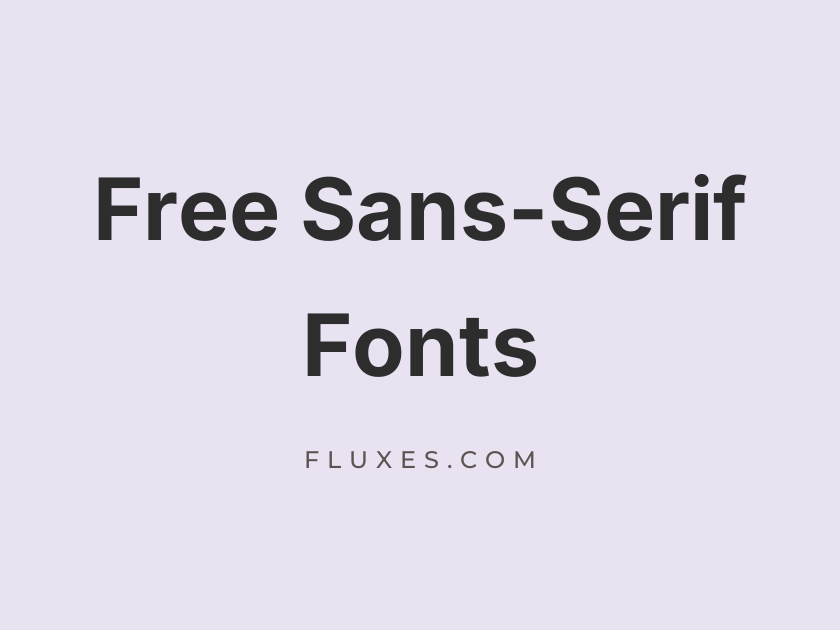
66 Best Free Sans-Serif Fonts
Sans-serif fonts are the workhorses of modern design: they carry paragraphs on screen, hold up in tiny UI labels, and still look sharp blown up on a poster. Anyone hunting for free sans-serif fonts for a website, app, or brand identity eventually lands on Google Fonts, where the sheer volume of options can be overwhelming. Some of these families are close cousins of paid classics like Helvetica, Futura, or Proxima Nova; others carve out their own personality entirely, from tight geometric grotesques to warm, rounded humanist faces.
1. Inter
Designed for screens, legible at every size
Built specifically for user interfaces, Inter has become the default choice for countless product teams because it simply behaves itself: tall x-height, open counters, and near-invisible personality that lets content do the talking. It is an obvious substitute for paid grotesques like Neue Haas or Helvetica Now on the web.
2. Roboto
Clean geometry meets friendly, humanist curves
Google’s own workhorse blends geometric bones with slightly humanist curves, which is why it reads as neutral on a spreadsheet and just as comfortable on a mobile app icon. Its ubiquity is a fair criticism, but the craftsmanship underneath still holds up.
3. Open Sans
Friendly, open letterforms for everyday reading
Open Sans earns its name honestly, with wide apertures and generous spacing that keep paragraphs breathable even in small print. It is a safe, dependable pick when a client asks for something that “just looks professional.”
4. Source Sans 3
Adobe's first open-source typeface, built for interfaces
As Adobe’s first open-source release, this one was engineered for user interfaces from day one, so it stays crisp in dense data tables and form labels. It lacks flash, and that restraint is exactly the point.
5. Lato
Warm grotesque shapes with a gentle personality
There is a quiet warmth to Lato’s rounded terminals that keeps it from feeling cold despite its grotesque structure. It pairs equally well with a serif headline or a display font, which is part of why it shows up so often in corporate branding.
6. Work Sans
Optimized for text, sharp at small sizes
Work Sans was optimized for on-screen text at medium sizes, and it shows in how clean the letterforms stay even when set small. Its slightly squared curves give it more character than Helvetica without sacrificing any of the neutrality that makes grotesques useful.
7. IBM Plex Sans
Corporate precision with subtle character
Commissioned by IBM as a genuinely distinctive corporate typeface, Plex Sans has a subtle engineering feel: notice the slight taper on the stems and the not-quite-perfect circles in the counters. It works hard in dashboards, documentation, and technical product interfaces where personality needs to stay in the background but not disappear entirely.
8. Public Sans
Designed for government, built for clarity
Developed for the United States government’s design system, Public Sans was built to be as invisible and accessible as possible across agencies and devices. That mandate makes it an excellent choice anywhere legibility and accessibility compliance matter more than flair.
9. Archivo
A modern grotesque with real headline muscle
Archivo carries the confident, slightly condensed stance of classic American grotesques, which makes it feel substantial in bold headlines without tipping into novelty. Set at heavier weights it has real presence on a landing page hero.
10. Barlow
Inspired by California license plates and highway signage
Barlow takes its DNA from California license plates and highway signage, giving it a slightly squared, engineered quality that still reads as friendly. It comes in a huge range of weights and widths, so one family can carry an entire interface.
11. Karla
A quirky grotesque with distinctive rounded details
Look closely at Karla’s terminals and you will spot small, slightly unusual curves that give it more warmth than a typical grotesque. It is a favorite for editorial websites that want something friendlier than Helvetica but still grounded.
12. Manrope
Sleek and modern, built for digital products
Manrope’s tight spacing and near-geometric structure make it feel current in a way that suits SaaS dashboards and app onboarding screens. Several ligatures and a genuinely useful variable font axis make it more flexible than it first appears.
13. Space Grotesk
Retro-futuristic type with a technical edge
Space Grotesk descends from the Space Mono family and carries some of the same quirky, retro-futuristic character into a proportional sans. Slightly unusual details, like the flared stems on certain letters, keep it from disappearing into the generic geometric-sans crowd, which makes it a smart pick for tech branding that wants a hint of personality.
14. Sora
Balanced geometry for confident interface headings
Sora sits comfortably between geometric and grotesque, with rounded corners that soften its otherwise confident structure. It reads especially well as interface headings paired with a plainer body font underneath.
There is no single “best” free sans-serif font, only the right one for the job in front of you. With this many solid, genuinely free options on Google Fonts, most projects can find a distinctive, well-crafted typeface without ever touching a paid license.